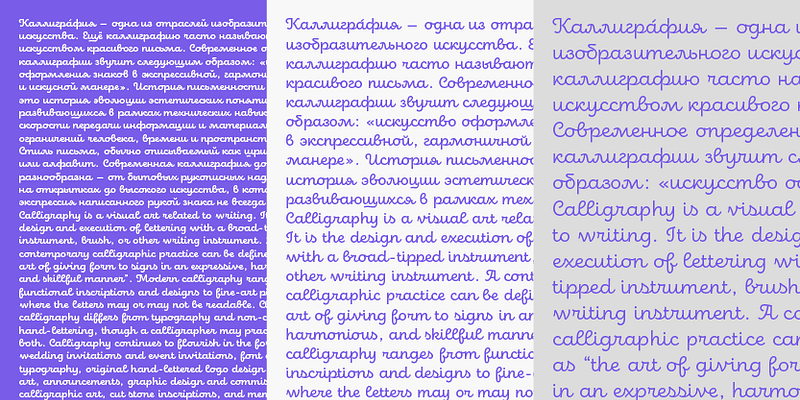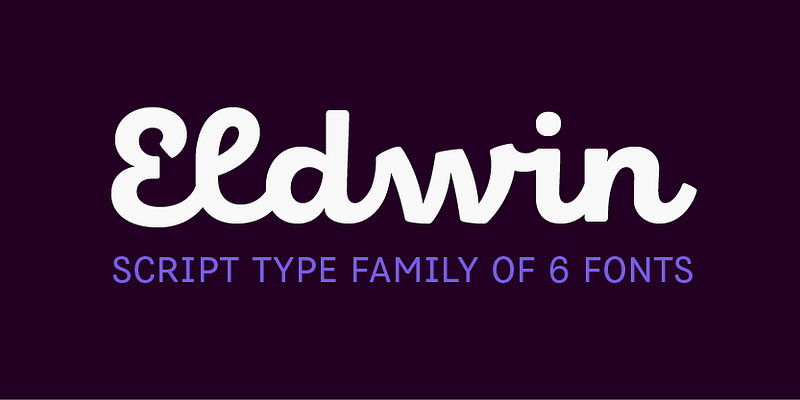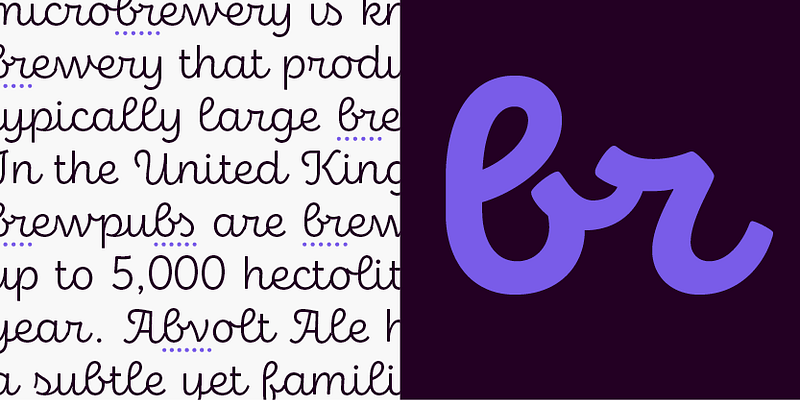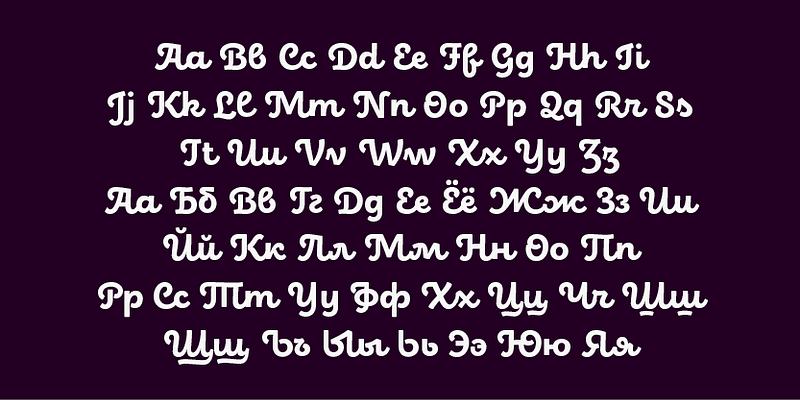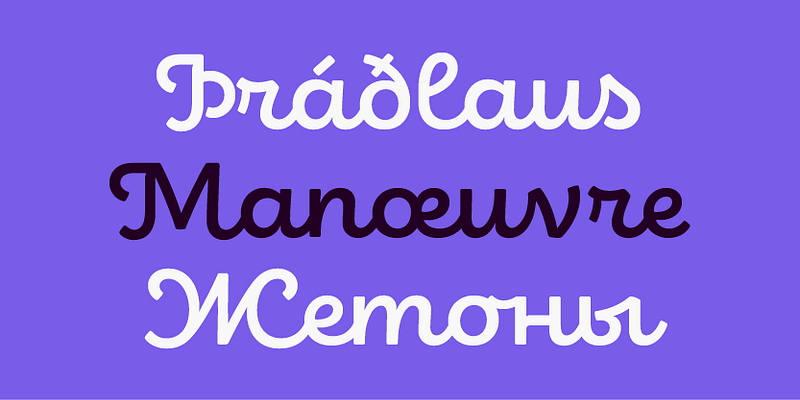
Eldwin is a spirited connected script type family with 6 weights in two styles, featuring alternatives, ligatures and supports both Latin and Cyrillic scripts.